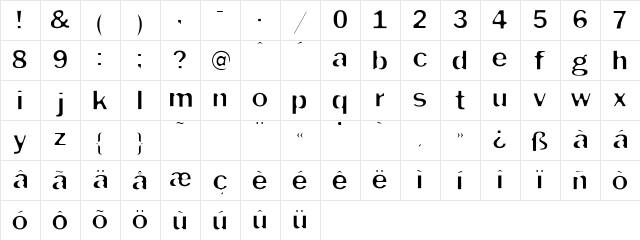
Sofa-AB Roman
Design Context for Sofa-AB Typeface
Sofa-AB takes a measured approach to typography — its balanced proportions and neutral character make it a reliable workhorse for both digital and print work.